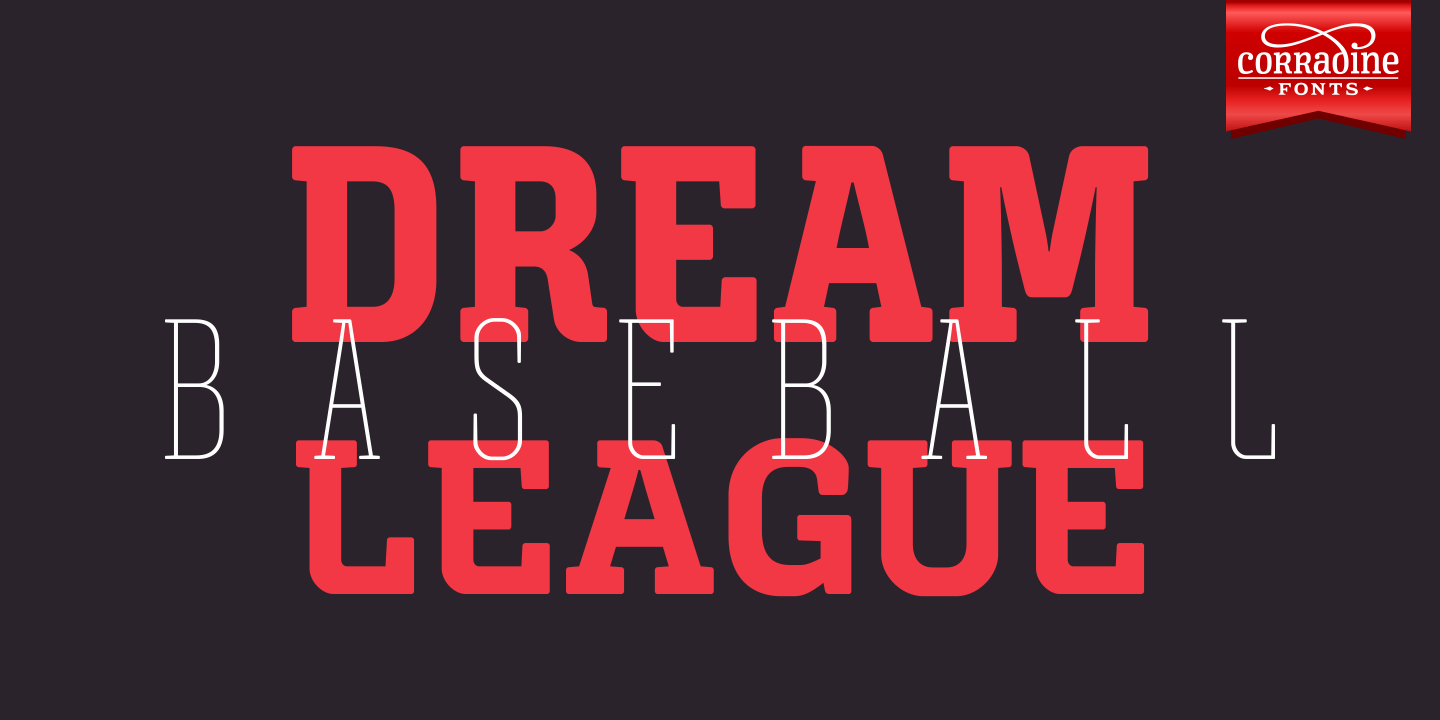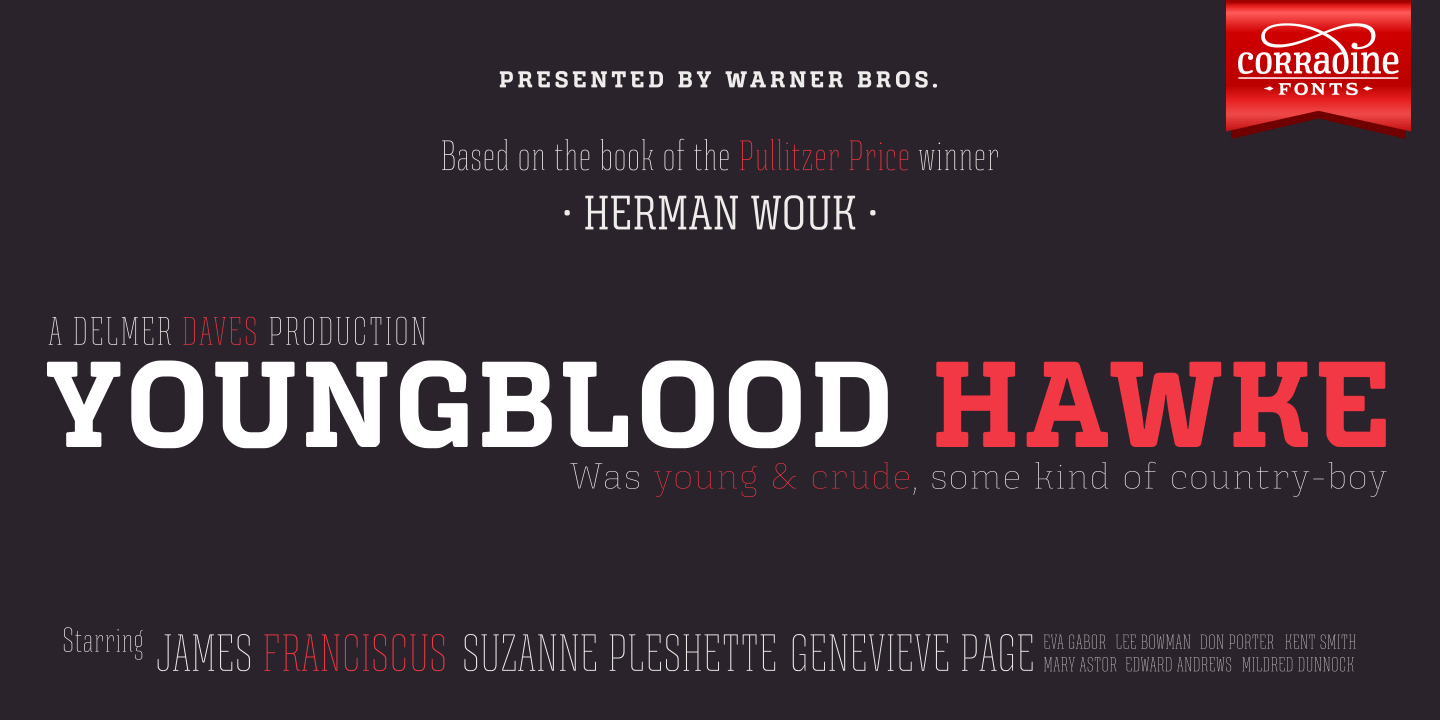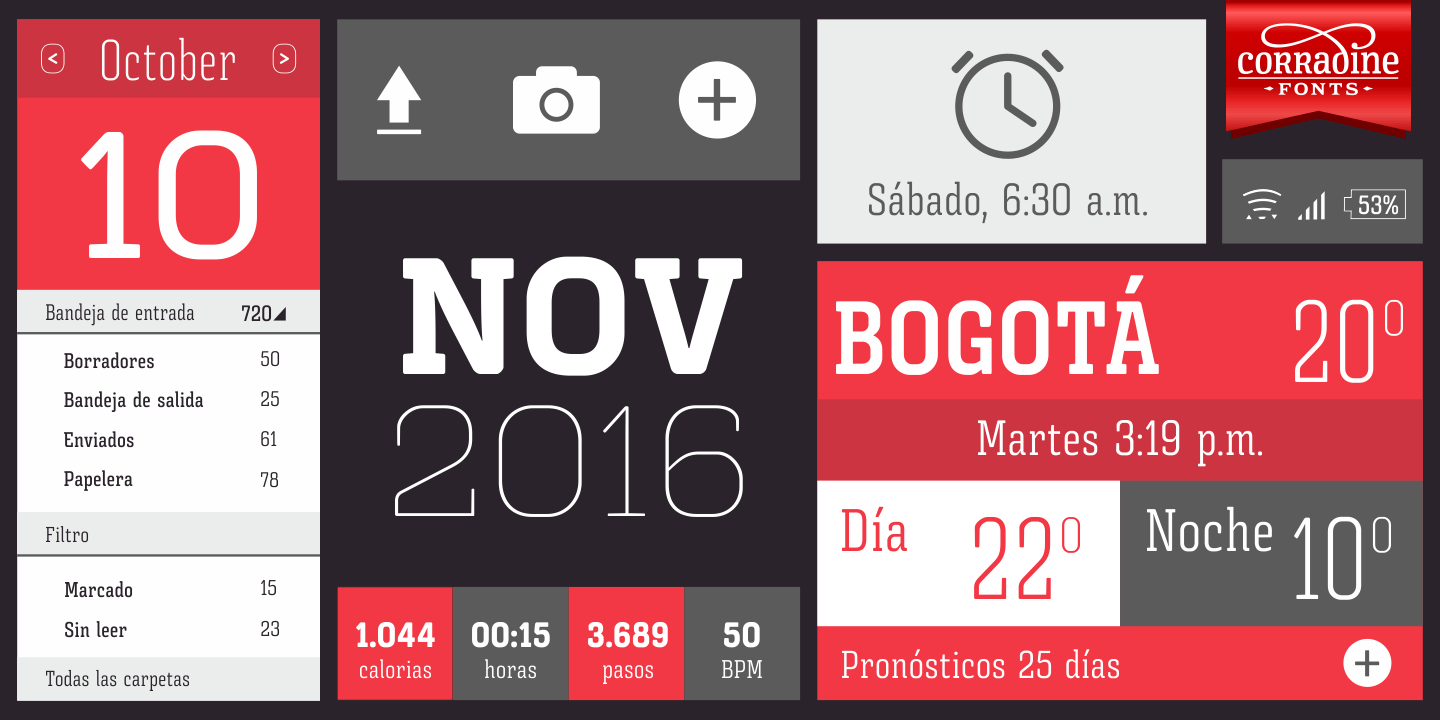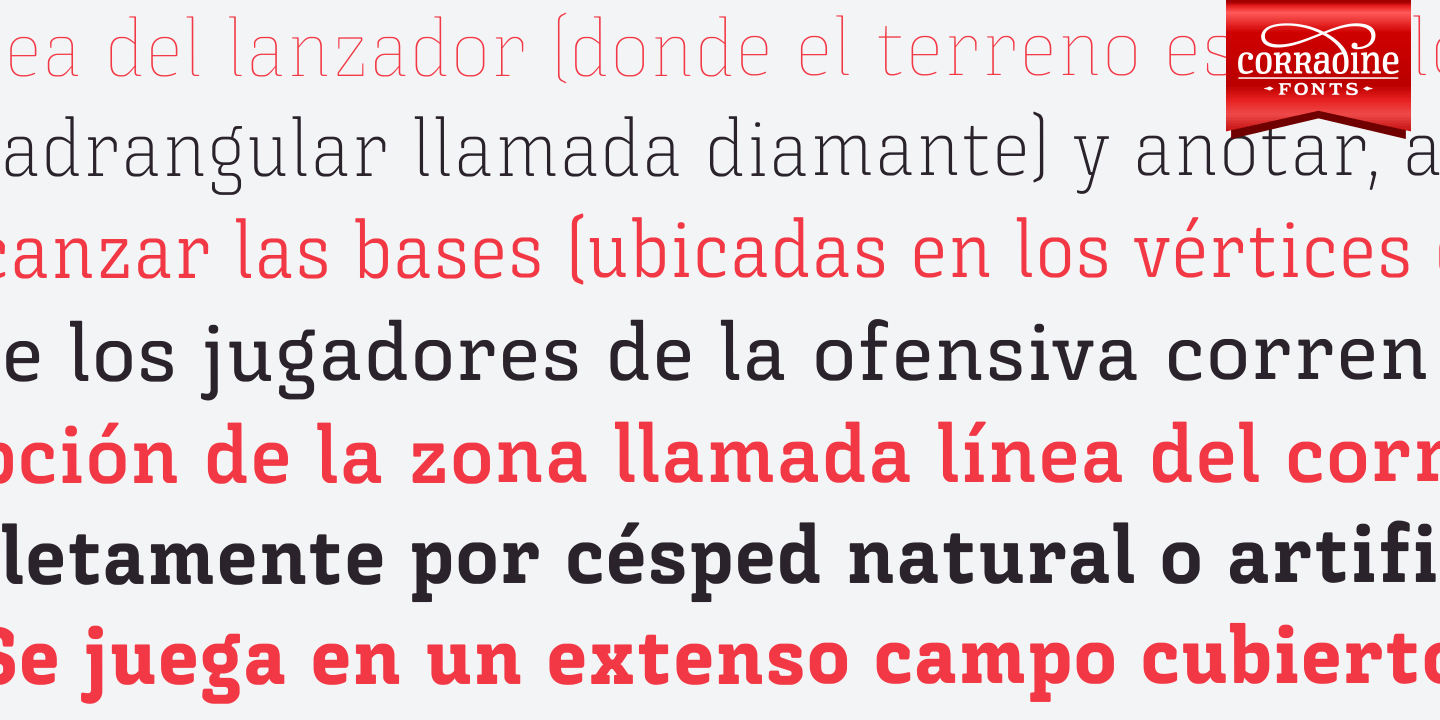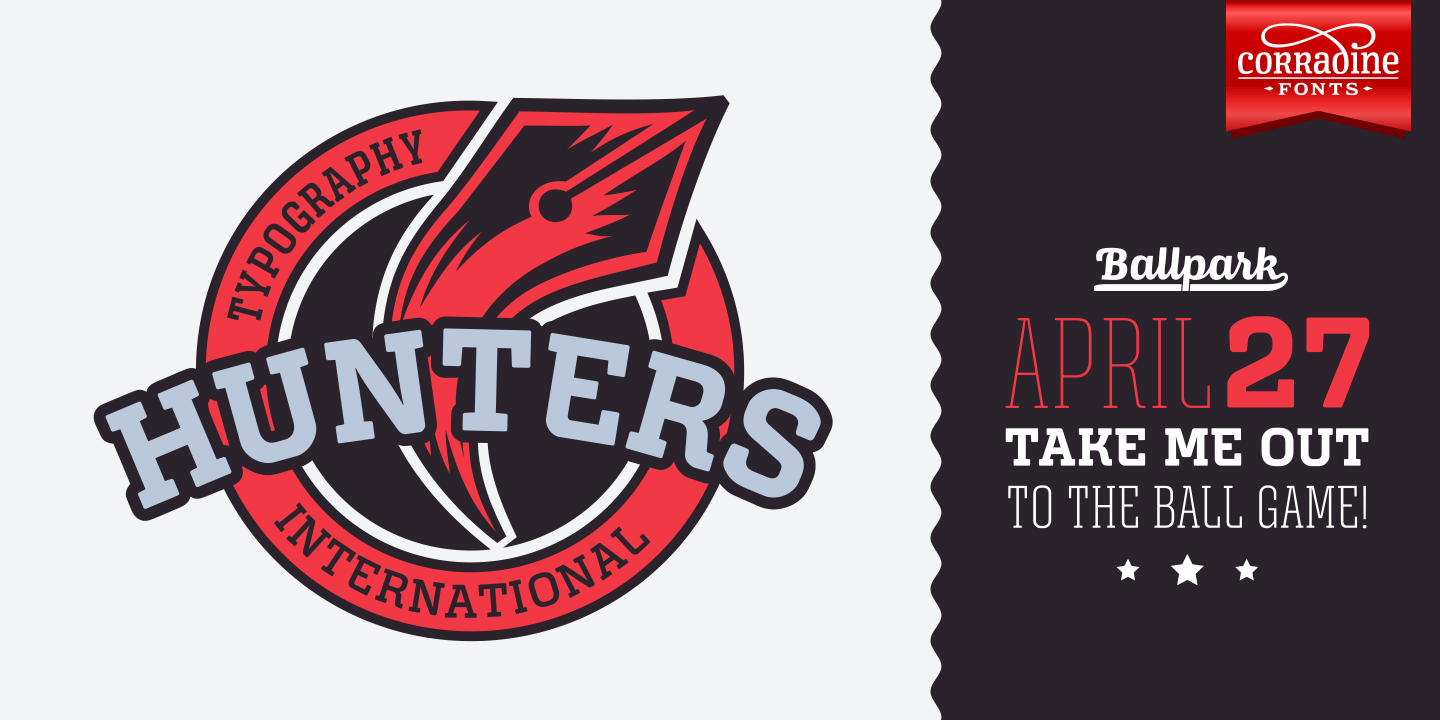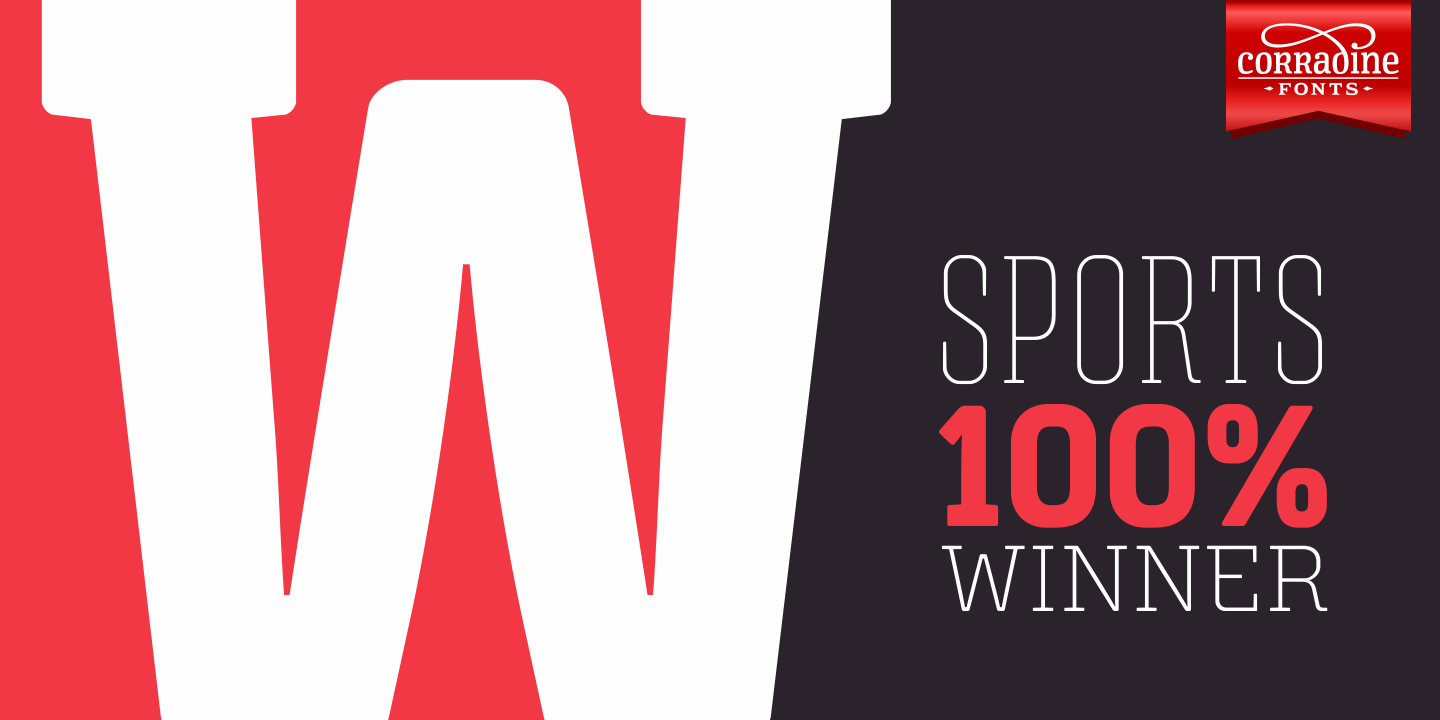
About Triunfo
Triunfo is a modern slab serif font family with sports flavor. It comes in 21 variants of weight and wide that allows you to choose the best option to use in your work.